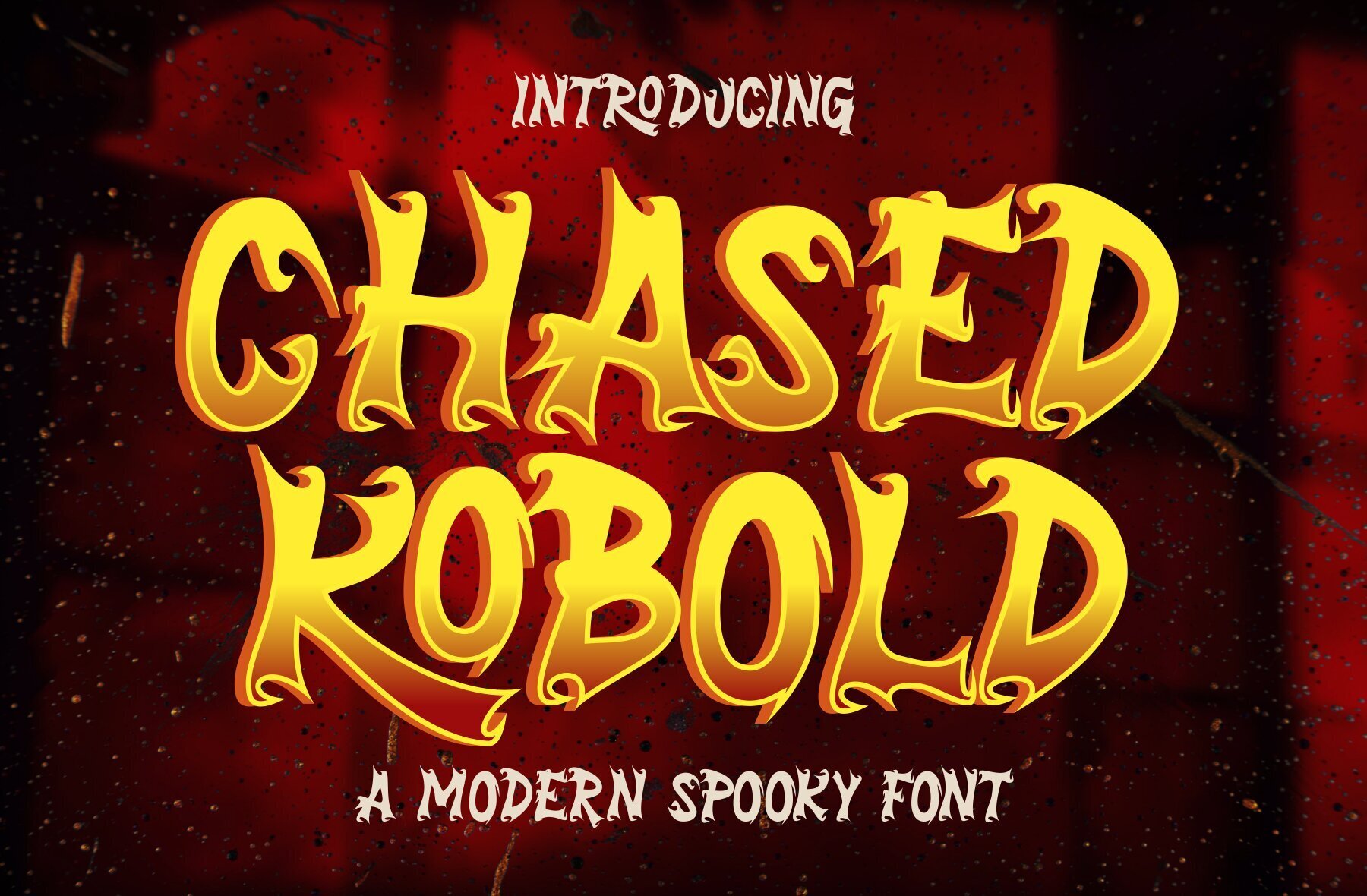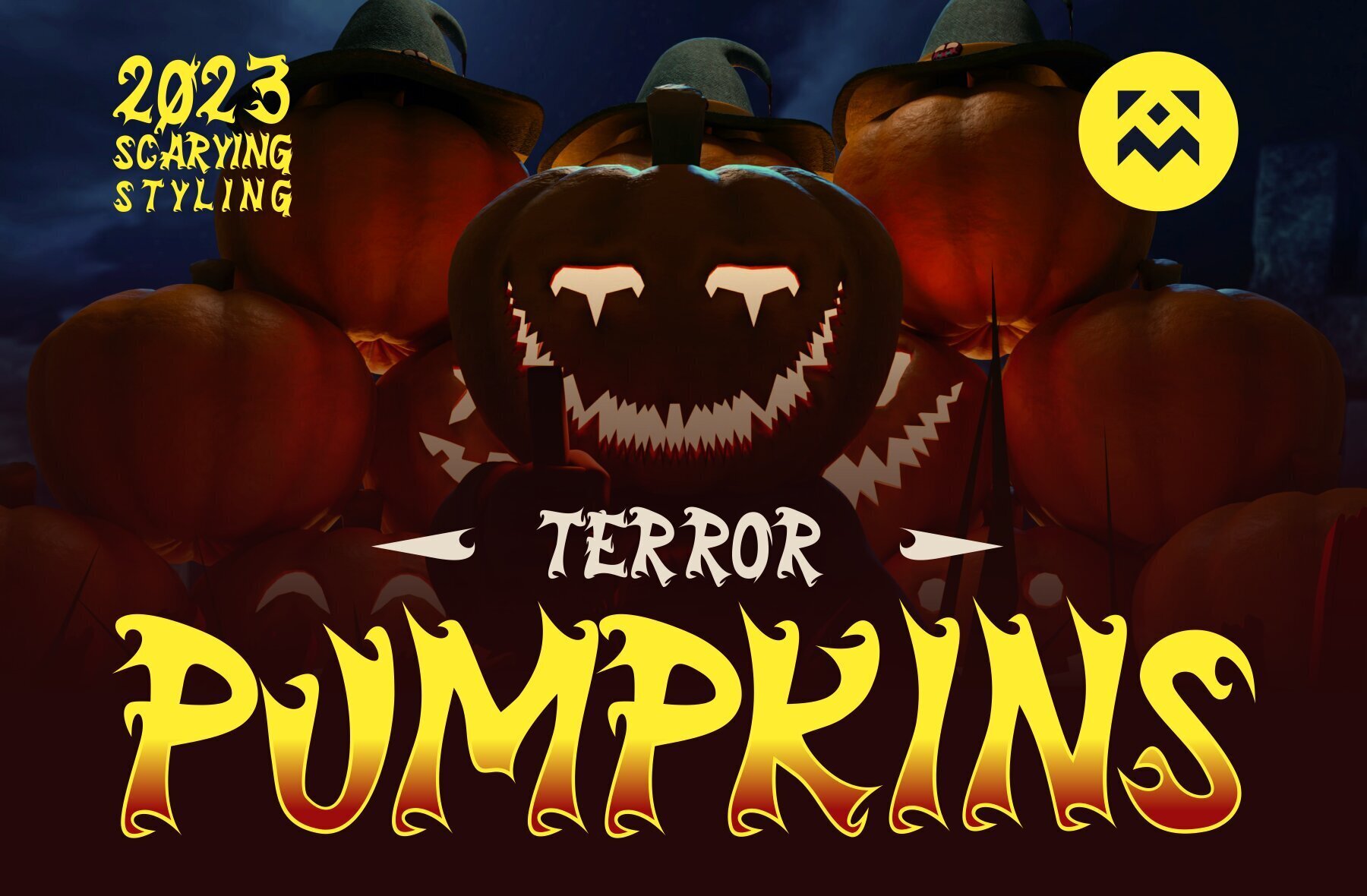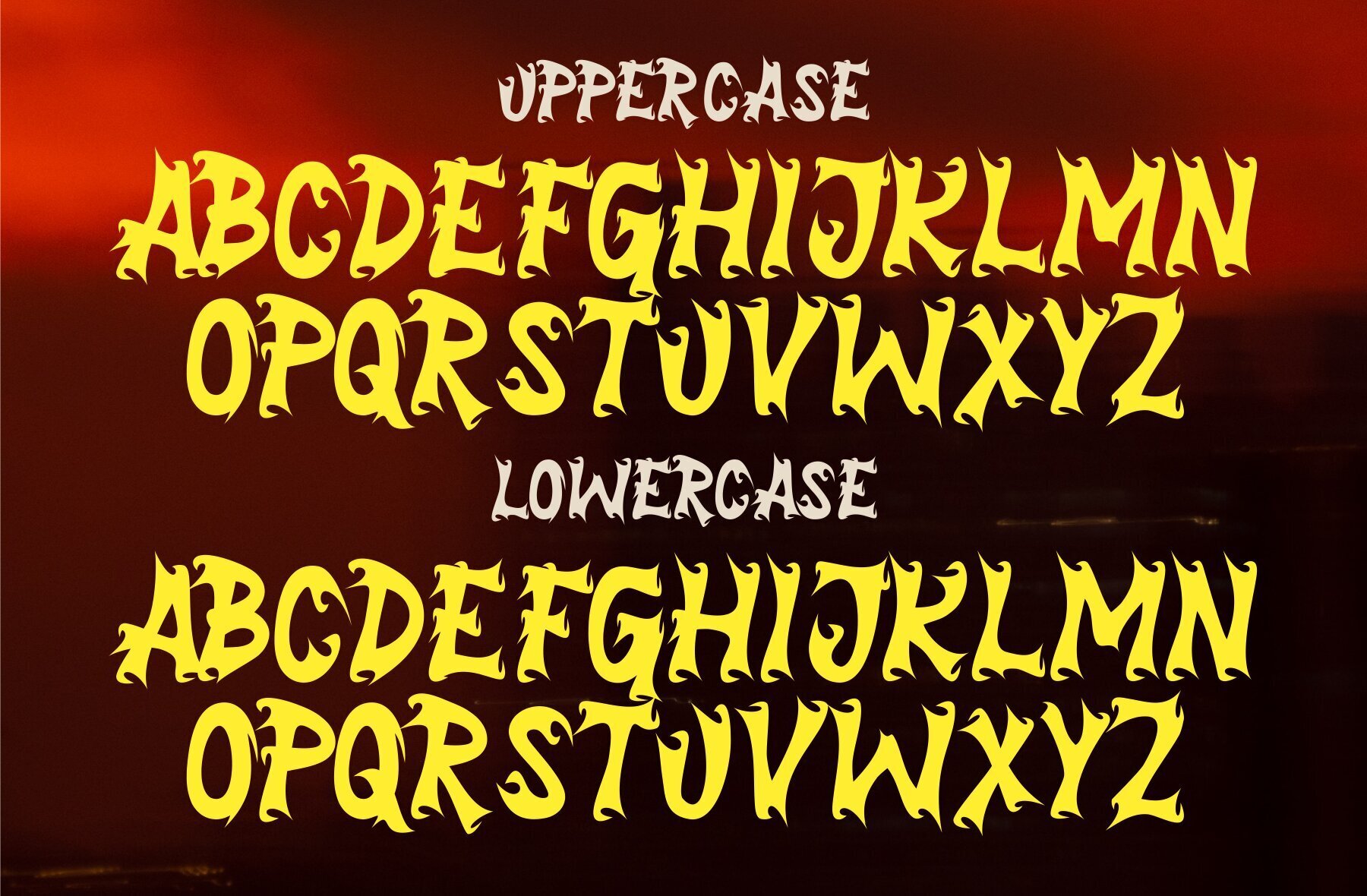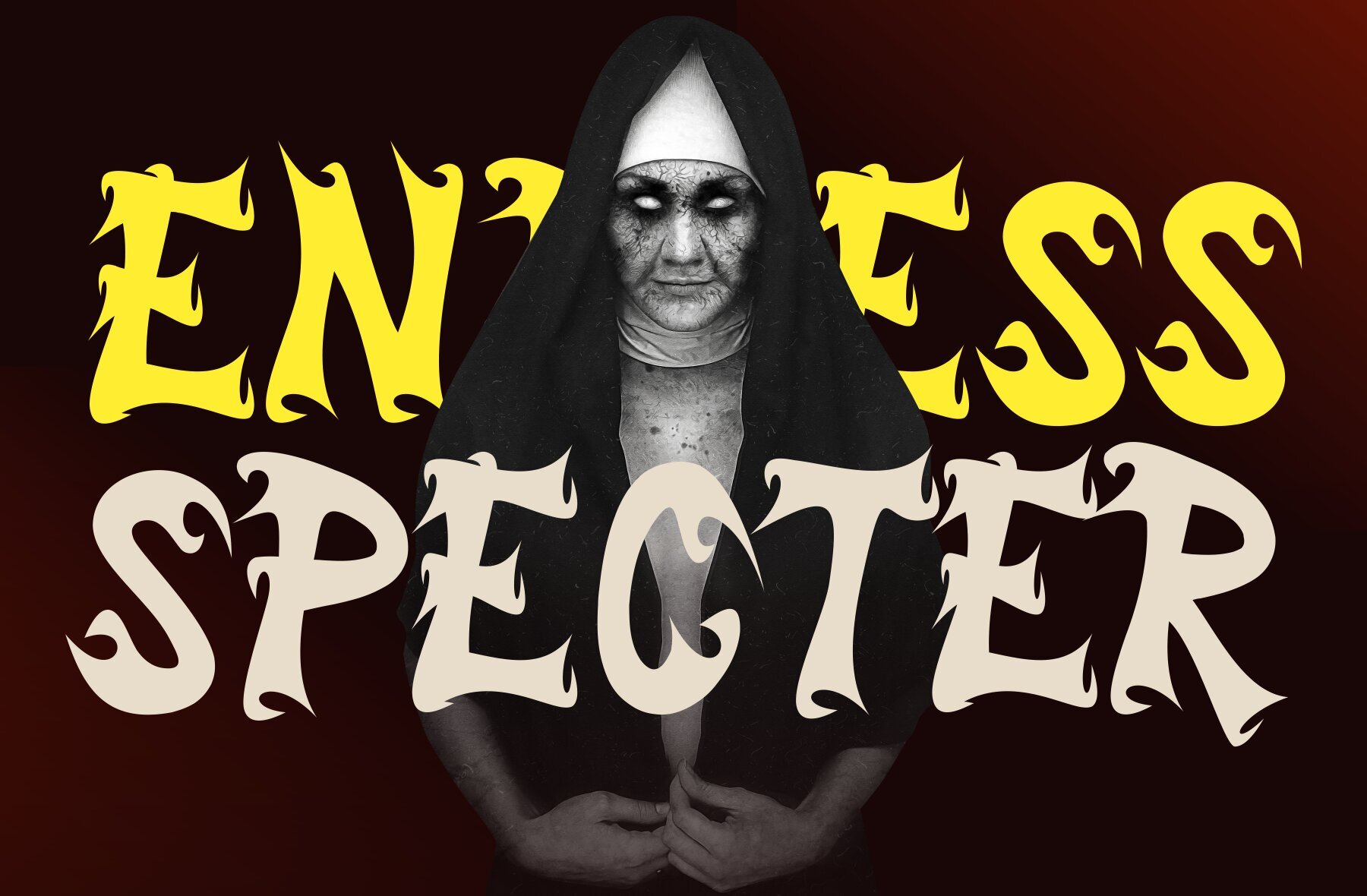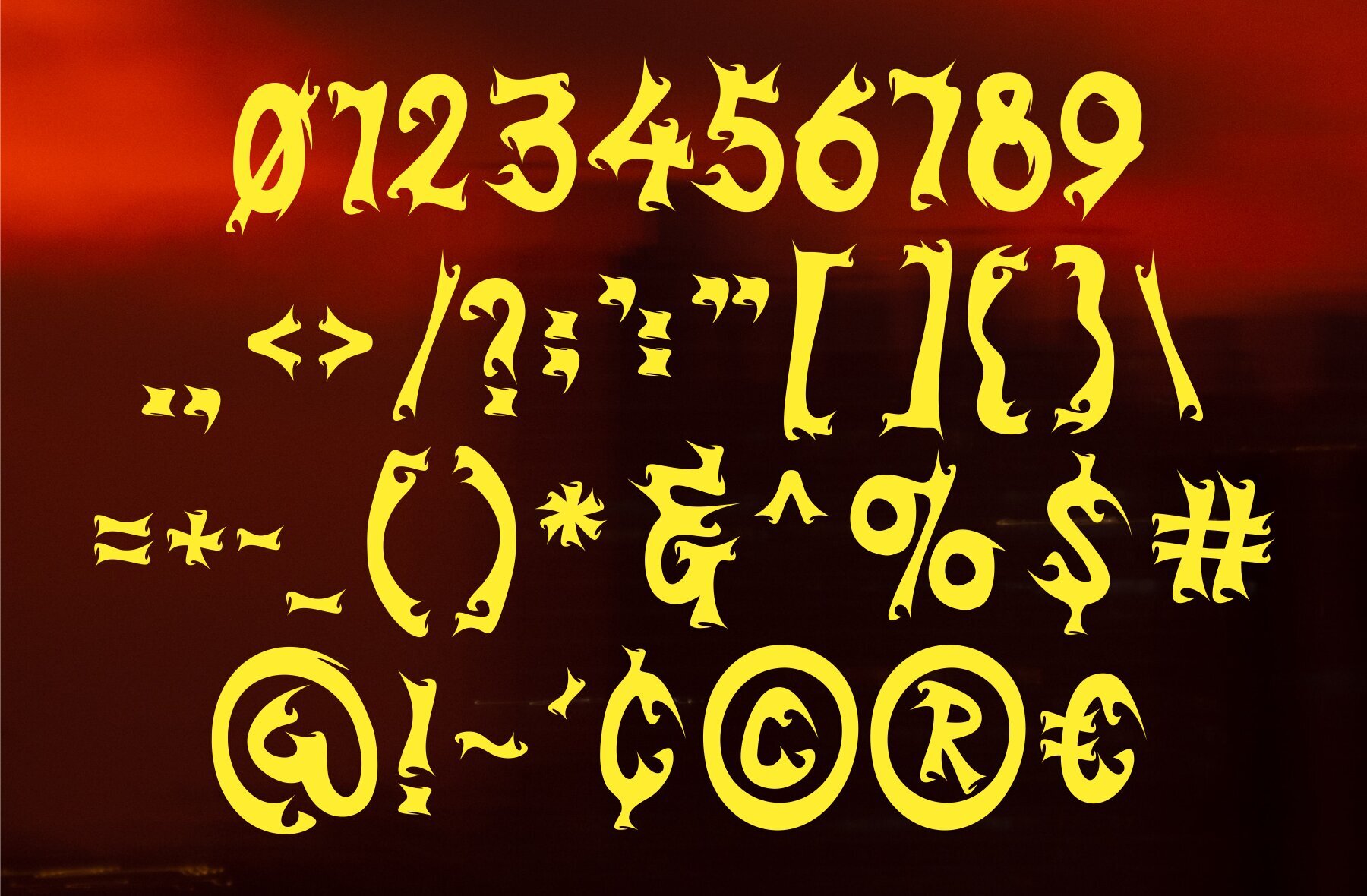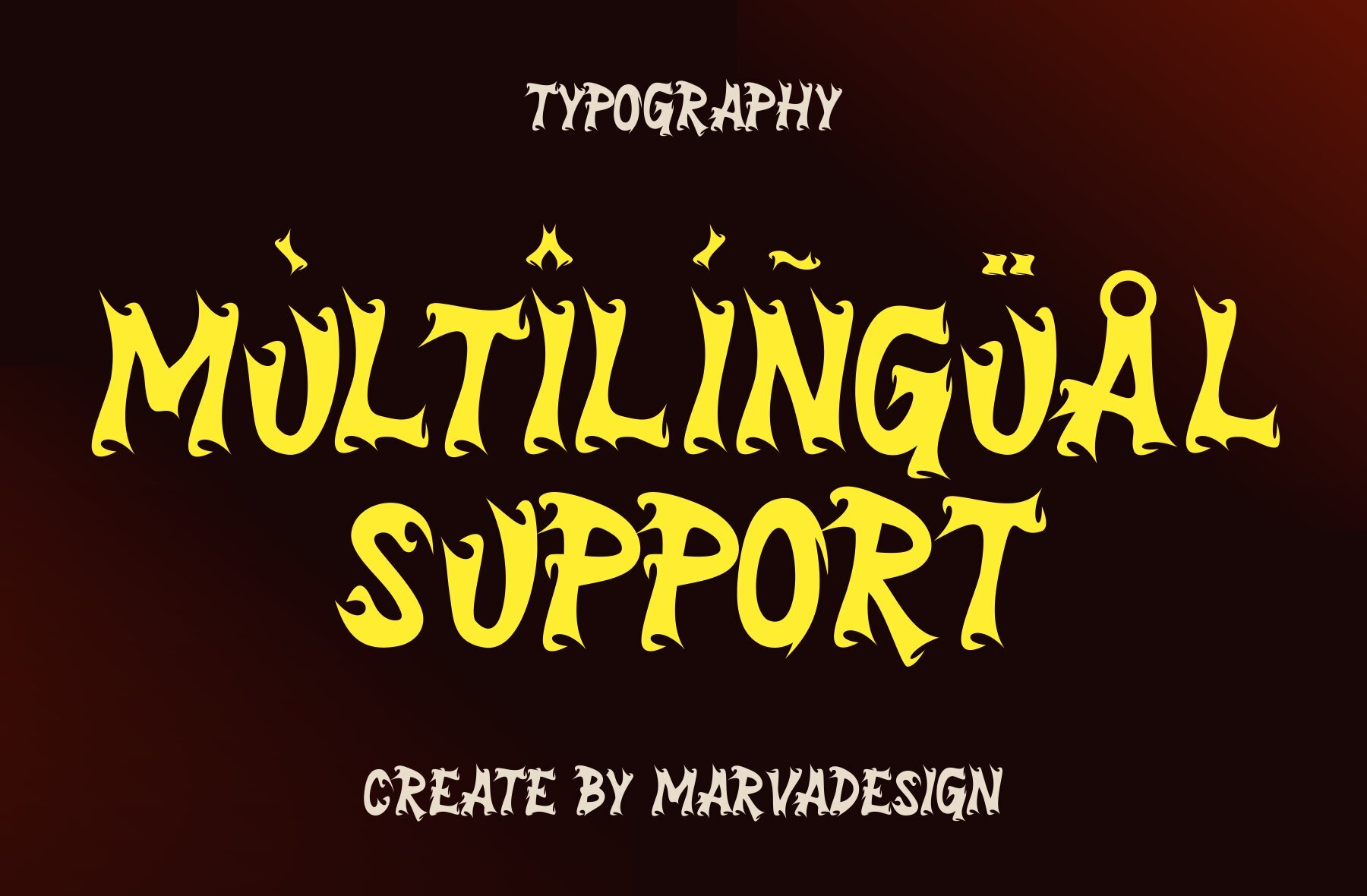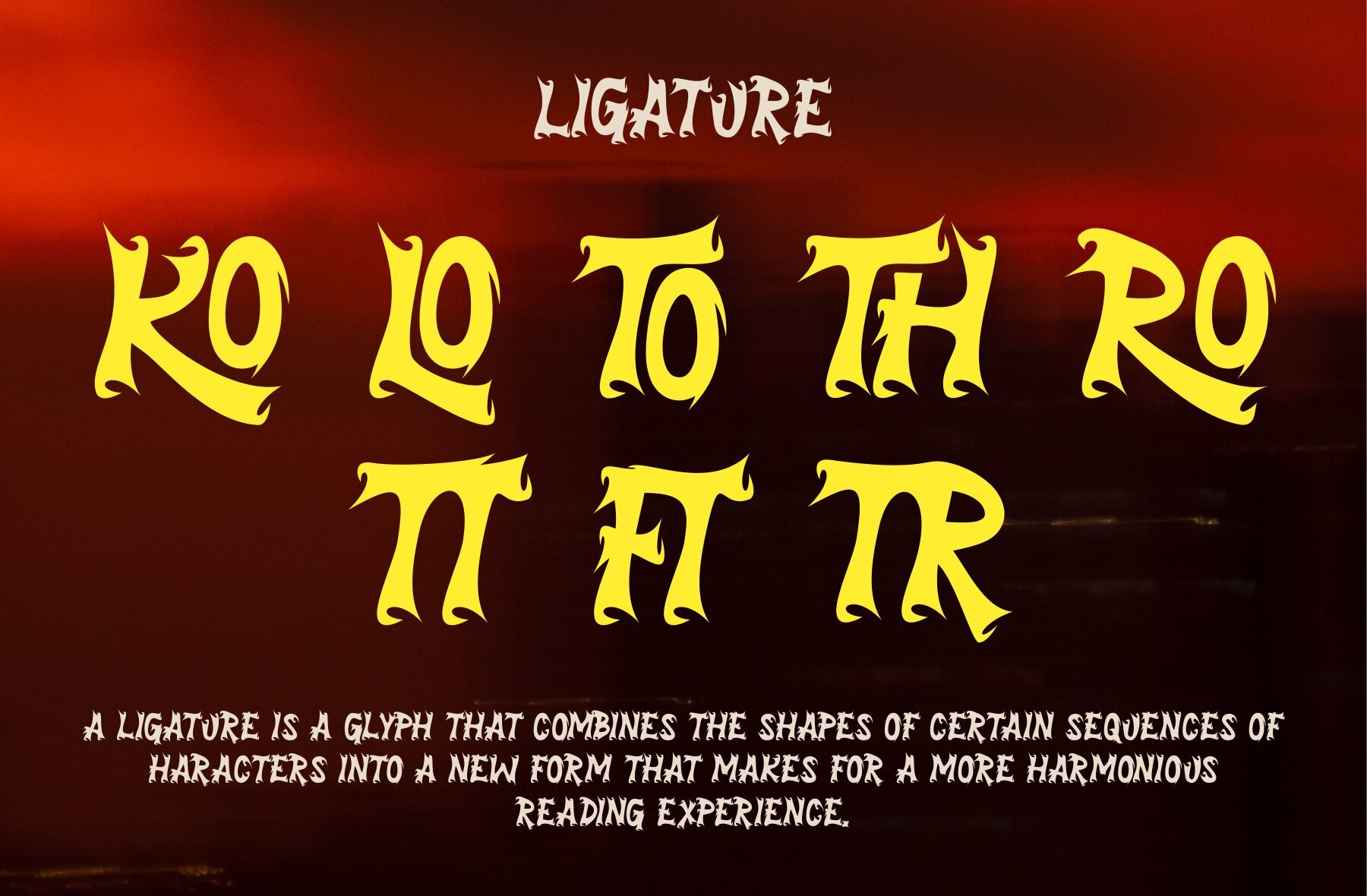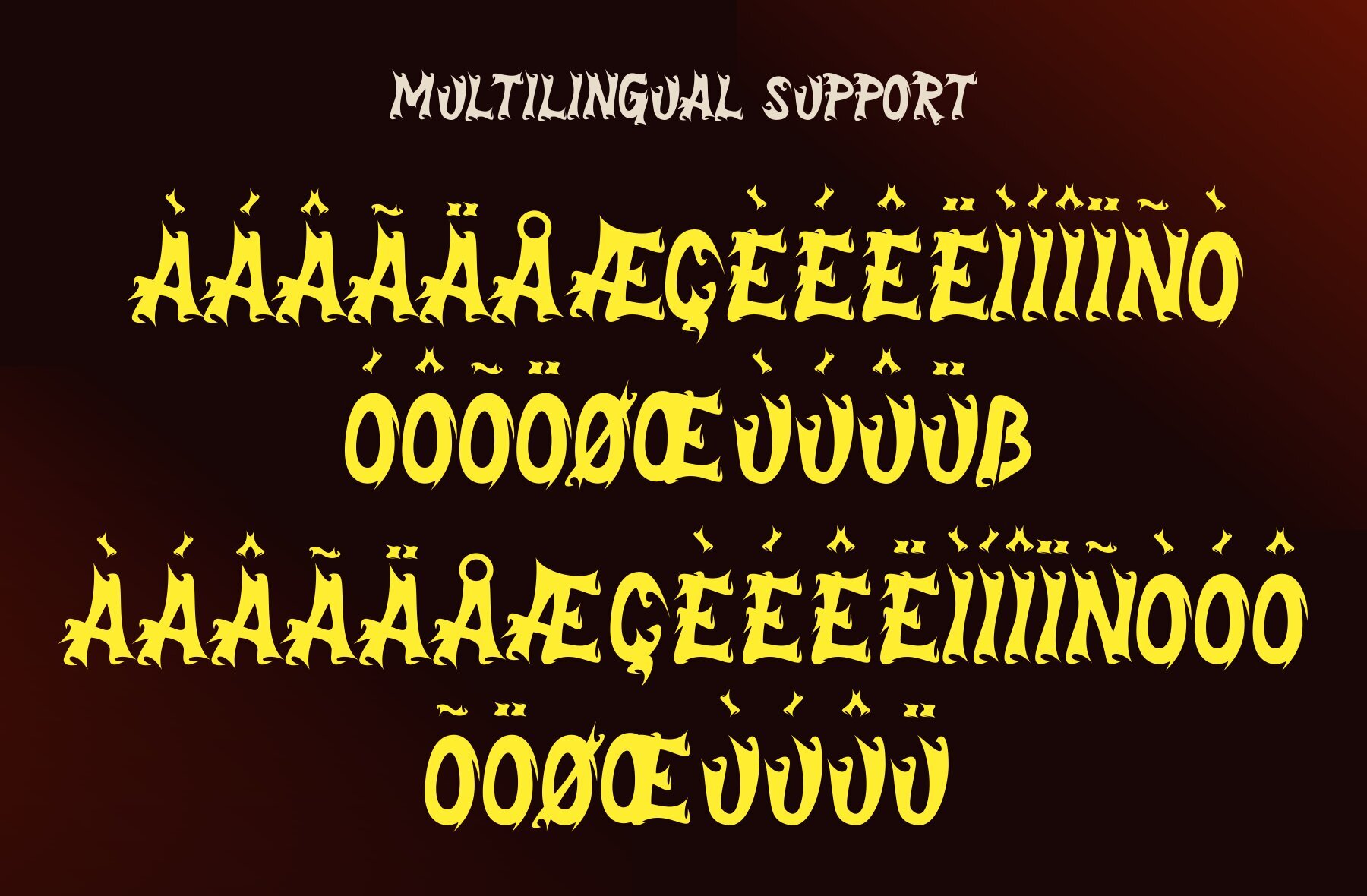
Chased Kobold Font
Chased Kobold
Chased Kobold is a striking and authentic display font designed to elevate any branding project. Ideal for logos, templates, product designs, and more, this font stands out in a variety of contexts.Chased Kobold: Bold Modern Display Font